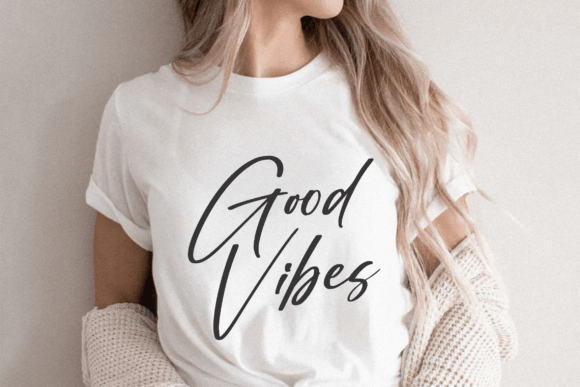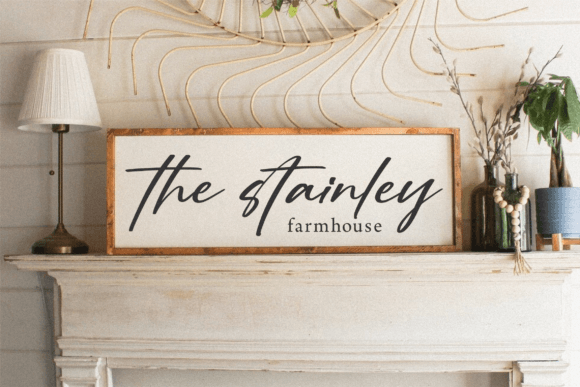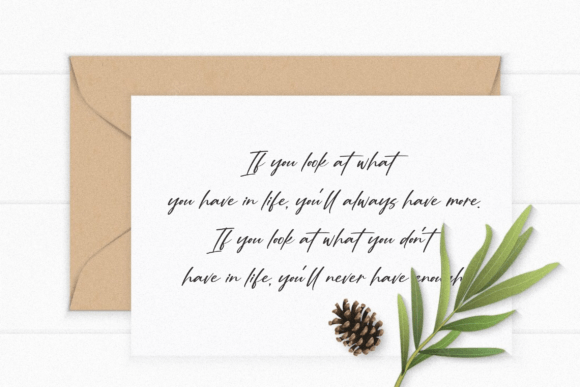
Introduction to Pastelheart Font
Have you ever stared at a blank canvas, trying to bring your creative vision to life? The blank page can be daunting, but the right design resource can make all the difference. For designers seeking a unique touch, the Pastelheart Font is a game-changer. This modern handwritten font is perfect for adding a personal touch to product packaging, branding projects, magazines, social media, weddings, or simply expressing words above a transparent background.
With its high-quality design and versatile nature, the Pastelheart Font is a valuable asset for any creative project. Whether you’re working on a free download or a high-stakes branding project, this font is sure to elevate your design and leave a lasting impression.
Key Features of Pastelheart Font
- Includes a range of pastel-inspired colors and subtle texture effects
- Perfect for use in digital design, including web and mobile applications, as well as print materials
Honest Review: Pastelheart Font
As a designer, I’ve had the chance to explore various design resources, and I’m excited to share my thoughts on the Pastelheart Font. This font is a lovely addition to any creative project that requires a touch of elegance and whimsy.
- High-quality design: The Pastelheart Font boasts beautiful, delicate lines and a smooth texture that’s perfect for digital design.
While the Pastelheart Font is a lovely addition to any design, there are a few limitations to consider:
- Limited font sizes: The font may not be suitable for large-scale use, as the delicate lines can get lost at bigger sizes.
- No bold or italic variations: If you need a more dramatic or emphasized font, you may need to look elsewhere.
Overall, the Pastelheart Font is a great resource for designers working on creative projects that require a touch of sophistication. With its high-quality design, free download, and transparent background, it’s an excellent choice for many designers. However, be aware of its limitations, and you’ll be well on your way to creating beautiful designs with this lovely font.
The Pastelheart Font is perfect for a variety of creative projects, including branding, advertising, and editorial design. It’s also a great choice for digital products, such as e-books and presentations, where a high-quality font is essential.
To get the most out of the Pastelheart Font, try combining it with other design resources, such as graphics and textures, to create a unique and eye-catching design. You can also experiment with different font sizes and styles to add visual interest to your project.
Alternatives to Pastelheart Font
Great Vibes is a beautiful, cursive font perfect for creative projects requiring a touch of elegance. This high-quality design resource features a transparent background, making it ideal for overlaying text on images. Great Vibes is a great alternative to Pastelheart Font for designers looking for a more classic, handwritten feel.
Alex Brush is a high-quality, script font ideal for designers seeking a sophisticated and elegant look. This free download is perfect for adding a touch of class to any creative project. While Pastelheart Font is more whimsical, Alex Brush is a more refined and polished option for designers.
Carolyna Pro is a beautiful, modern script font perfect for designers requiring a high-quality design resource. This font features a transparent background, making it ideal for overlaying text on images. Carolyna Pro is a great alternative to Pastelheart Font for designers seeking a more modern and sophisticated look.